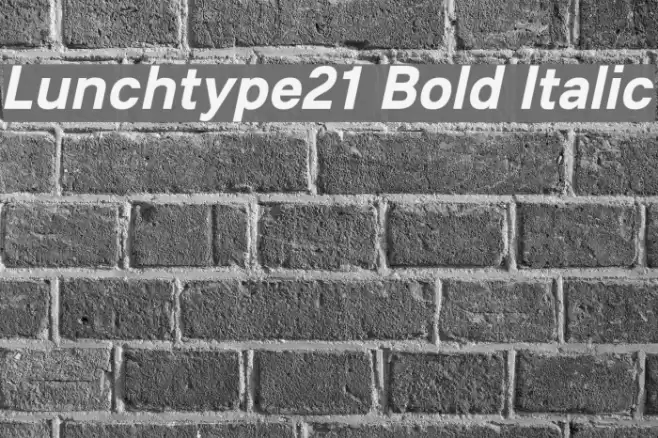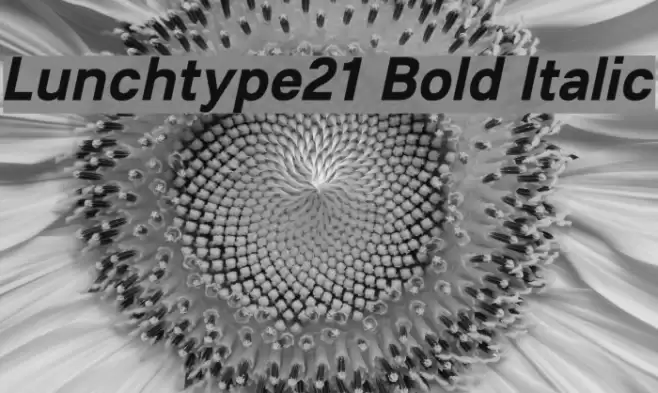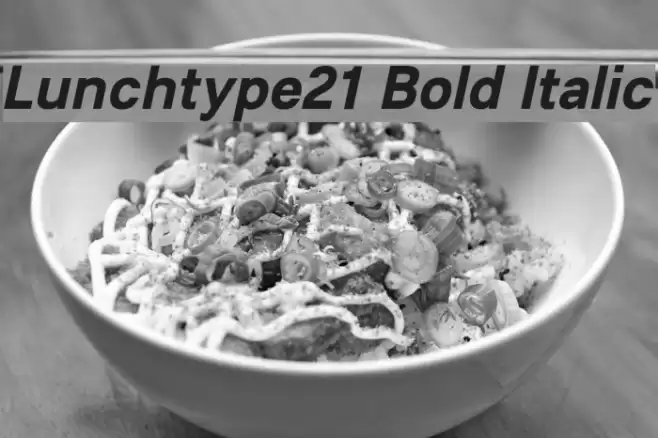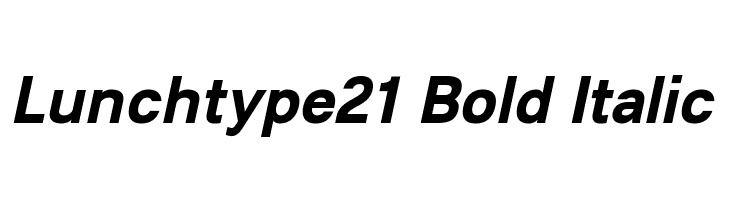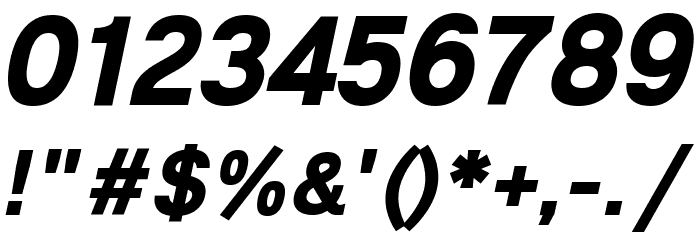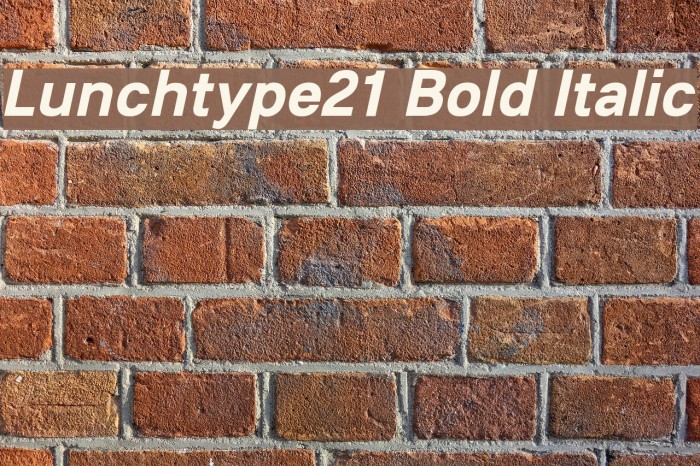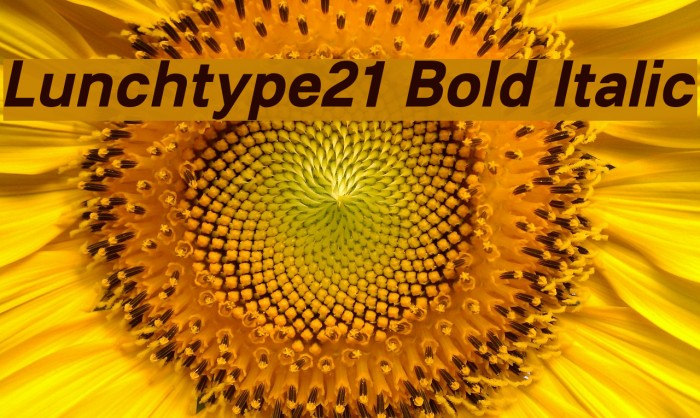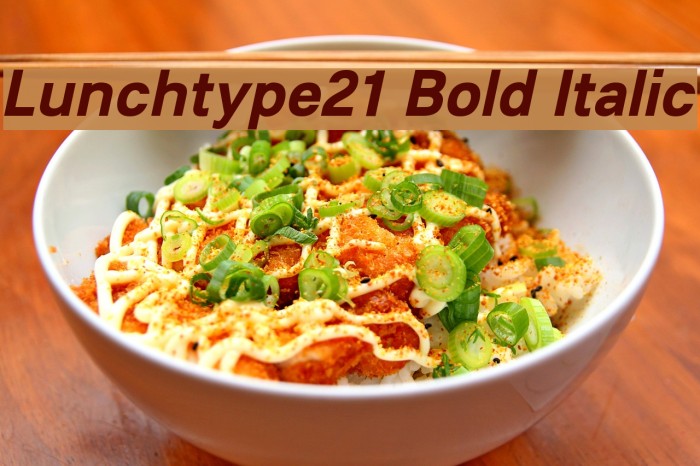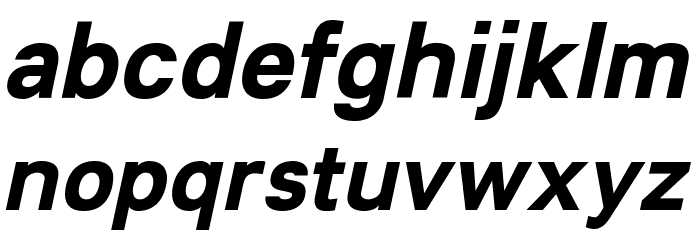
Lunchtype21 Bold Italic Font
Lunchtype21 Bold Italic Description
This font exhibits a bold and italicized style, characterized by its strong, slanted letterforms that convey a sense of dynamism and emphasis. The uppercase and lowercase letters are well-proportioned, maintaining a consistent slant throughout. The numerals are clear and bold, ensuring readability. Special characters are designed with the same bold and italicized features, providing a cohesive look across all glyphs. The overall appearance is modern and assertive, making it suitable for impactful design projects.
A bold, italicized font with a modern and dynamic style from Uncategorized fonts.
- Proposed Projects: Ideal for branding, advertising, headlines, and any design requiring a strong visual impact.
- Use Case: Headlines, Logos, Advertising